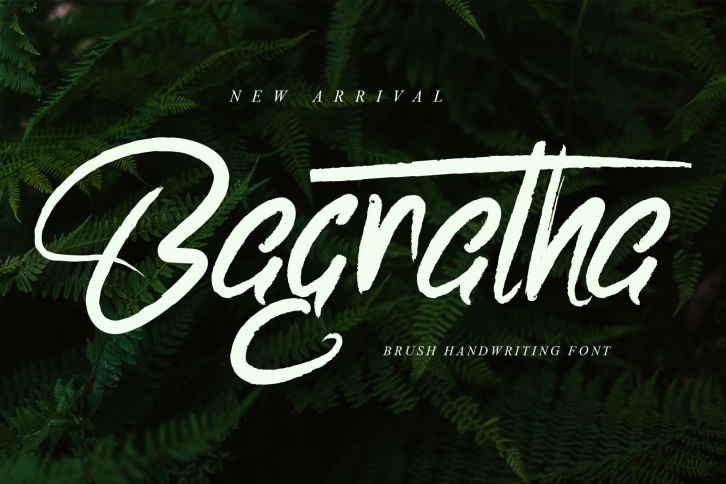
Bagratha is a cool, brushed display font. No matter the topic, this font will be an incredible asset to your fonts’ library, as it has the potential to elevate any creation.Â